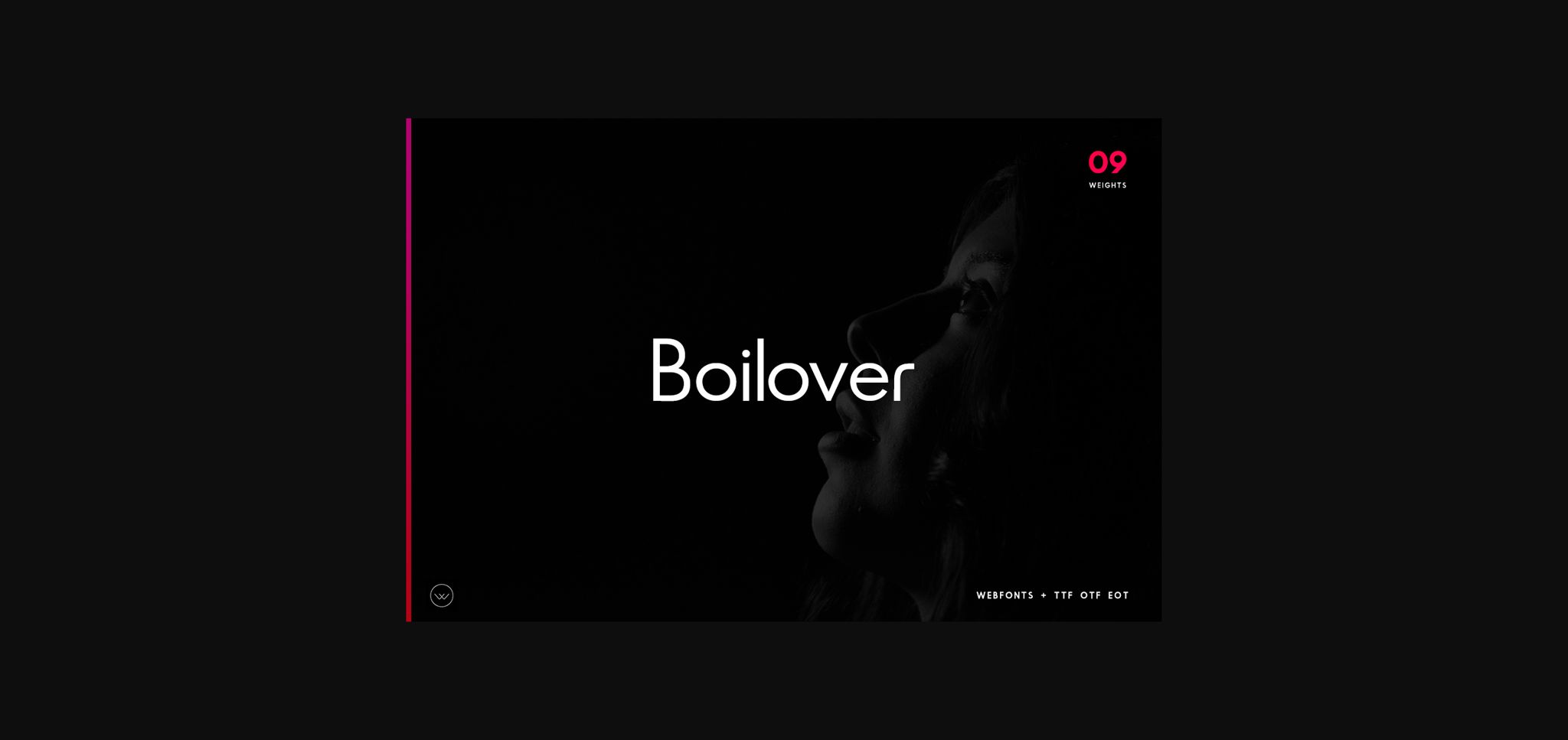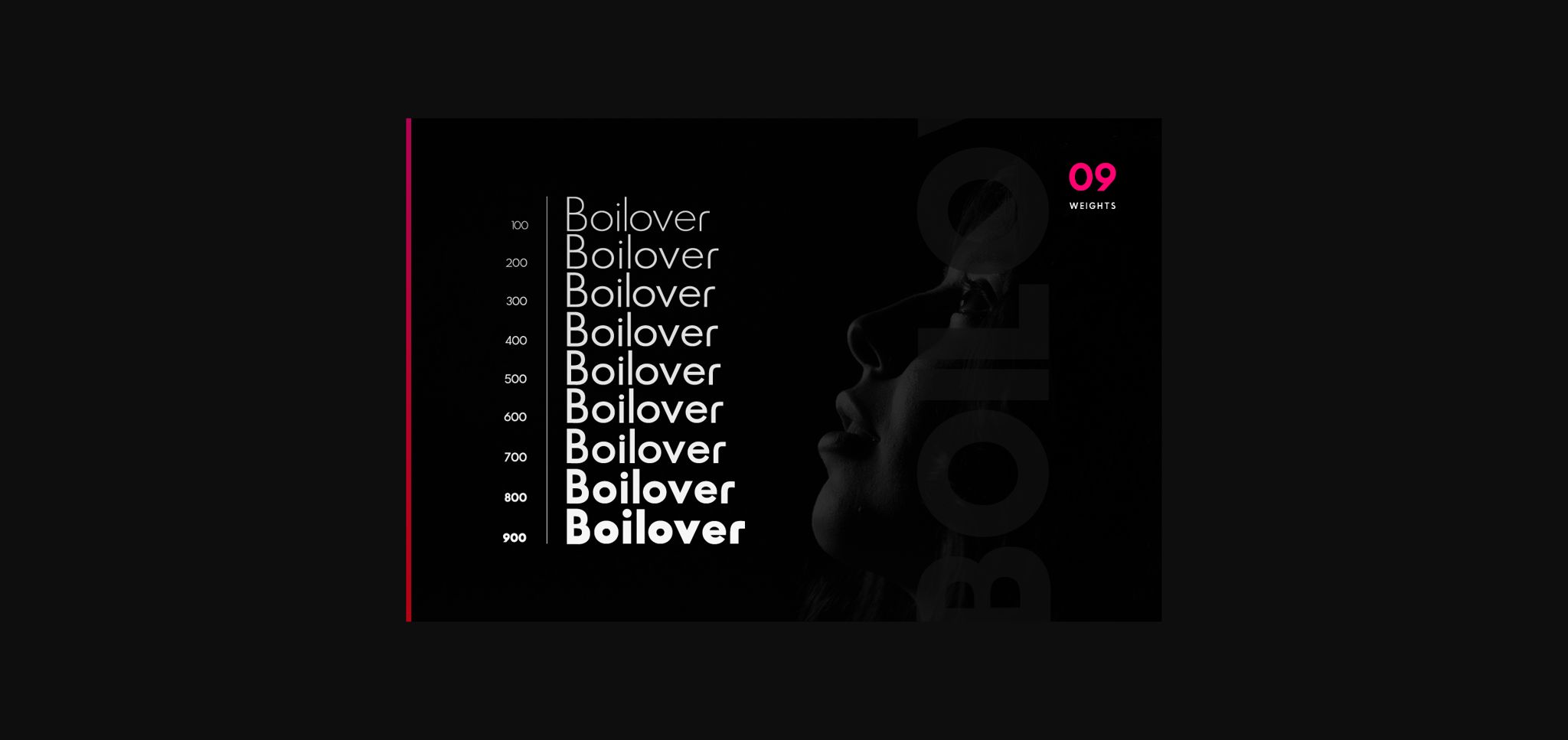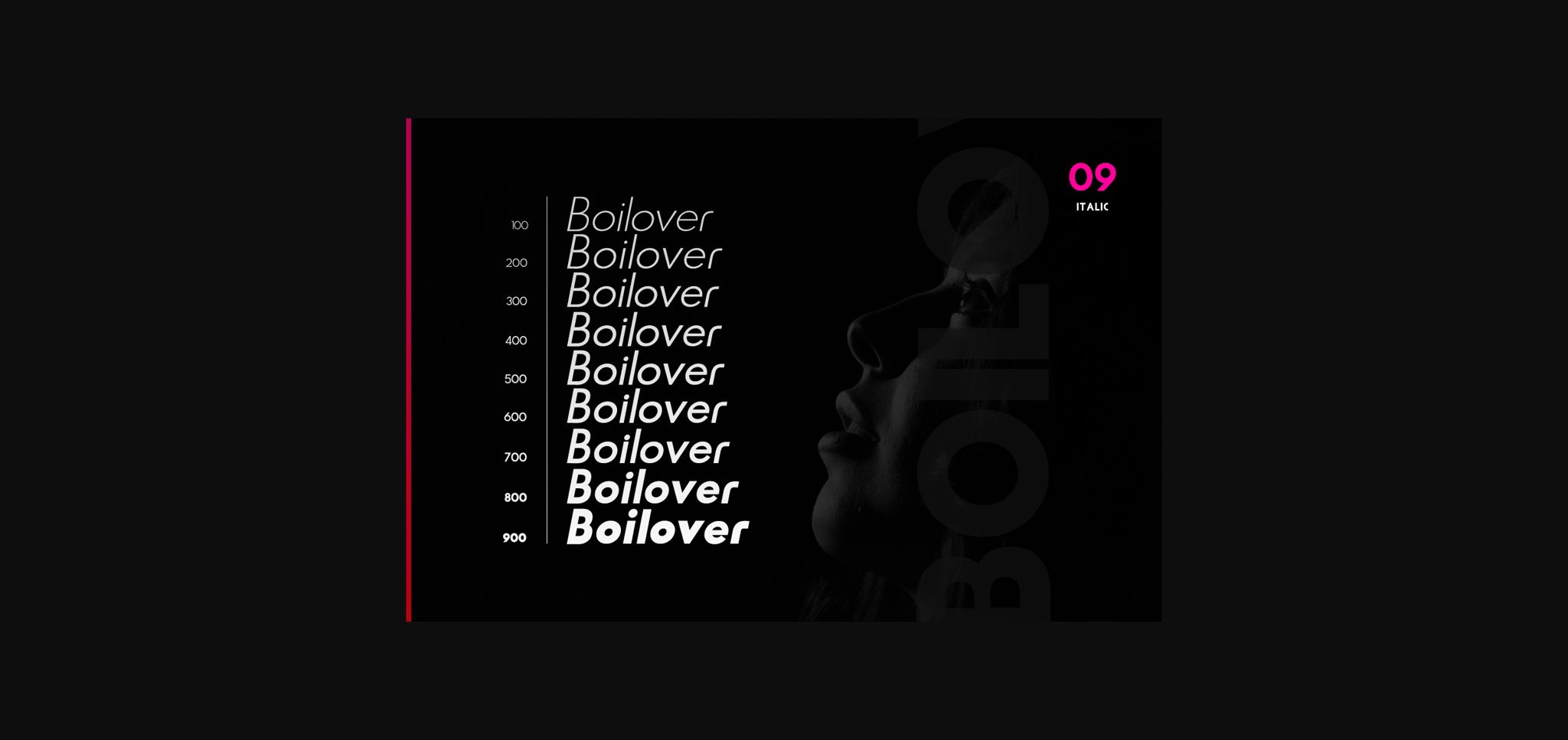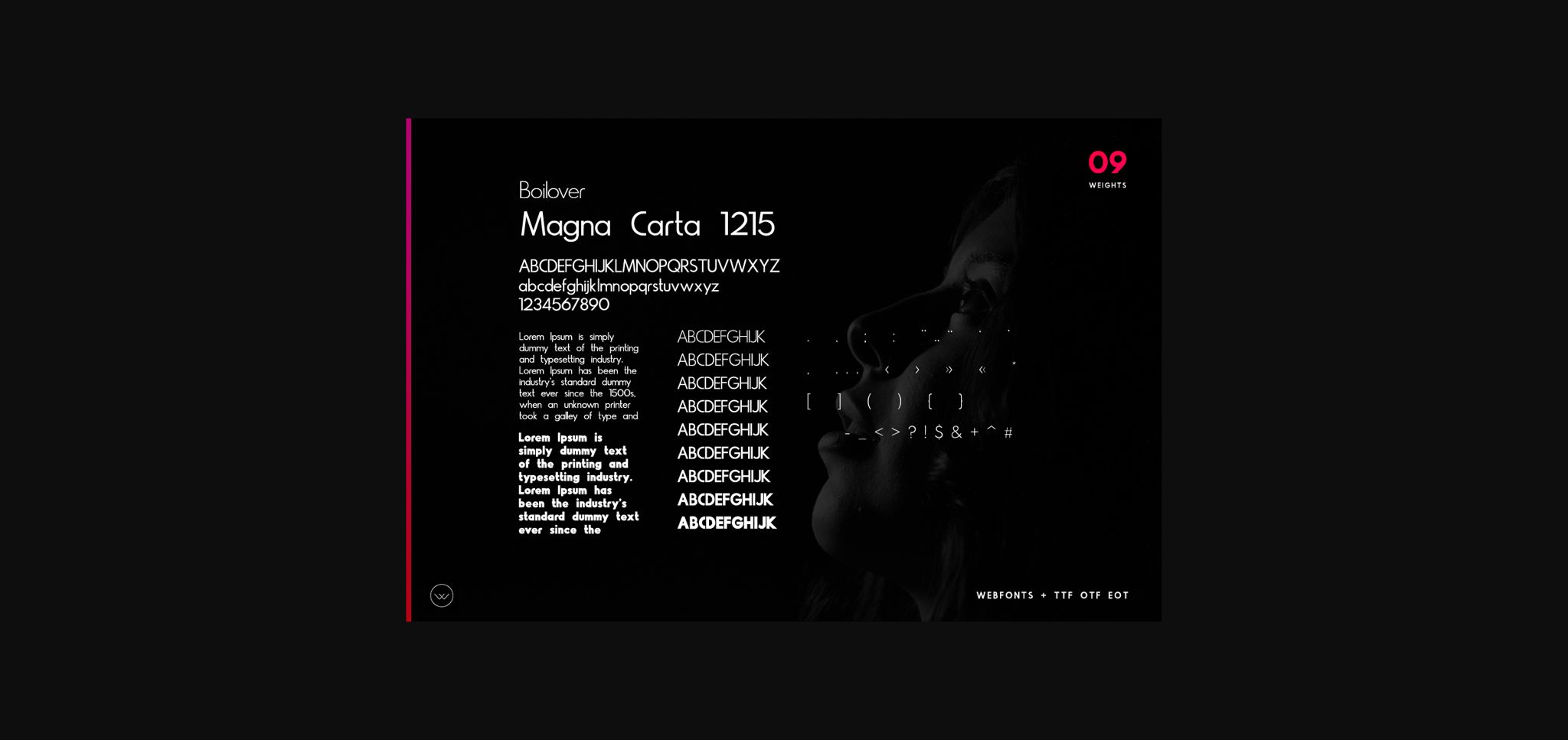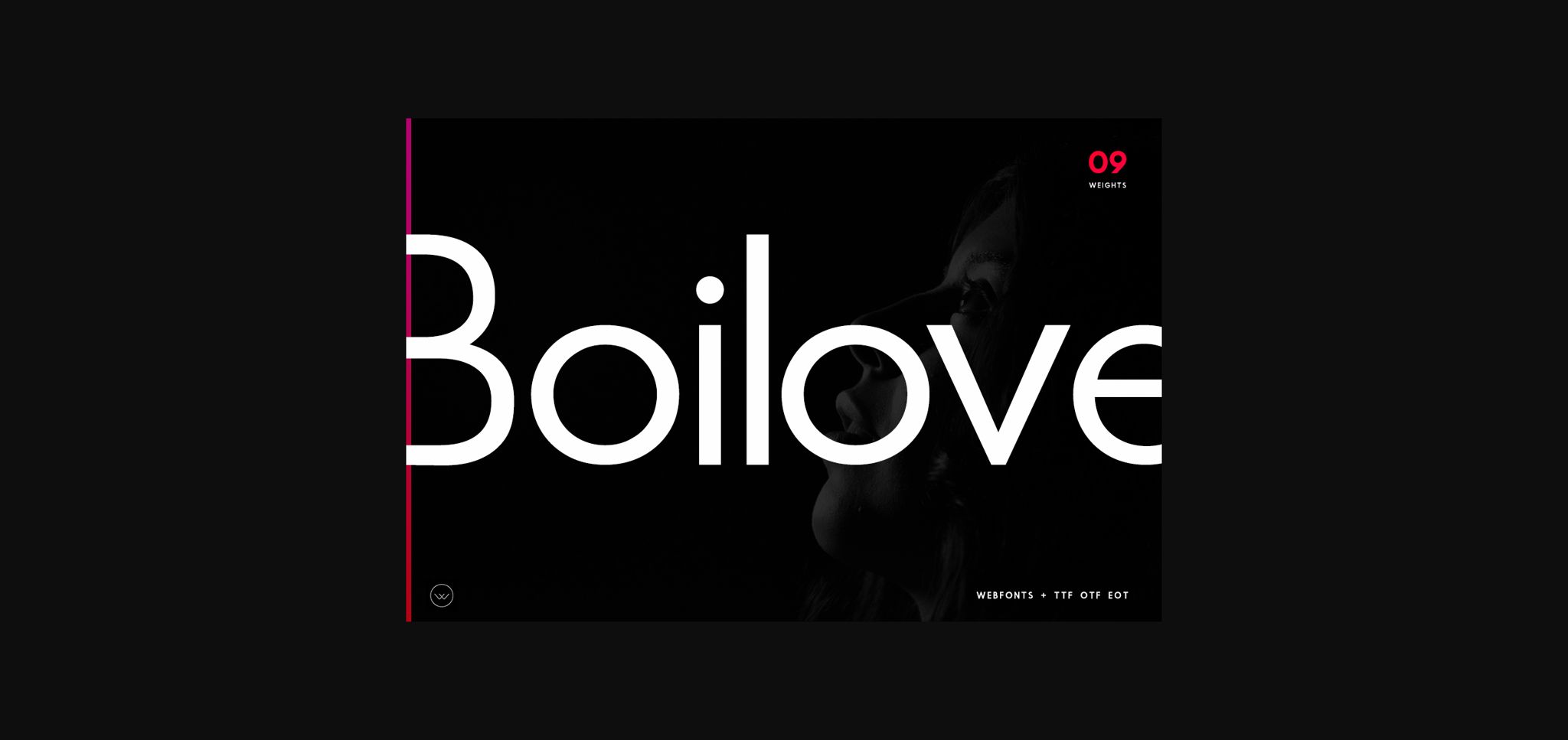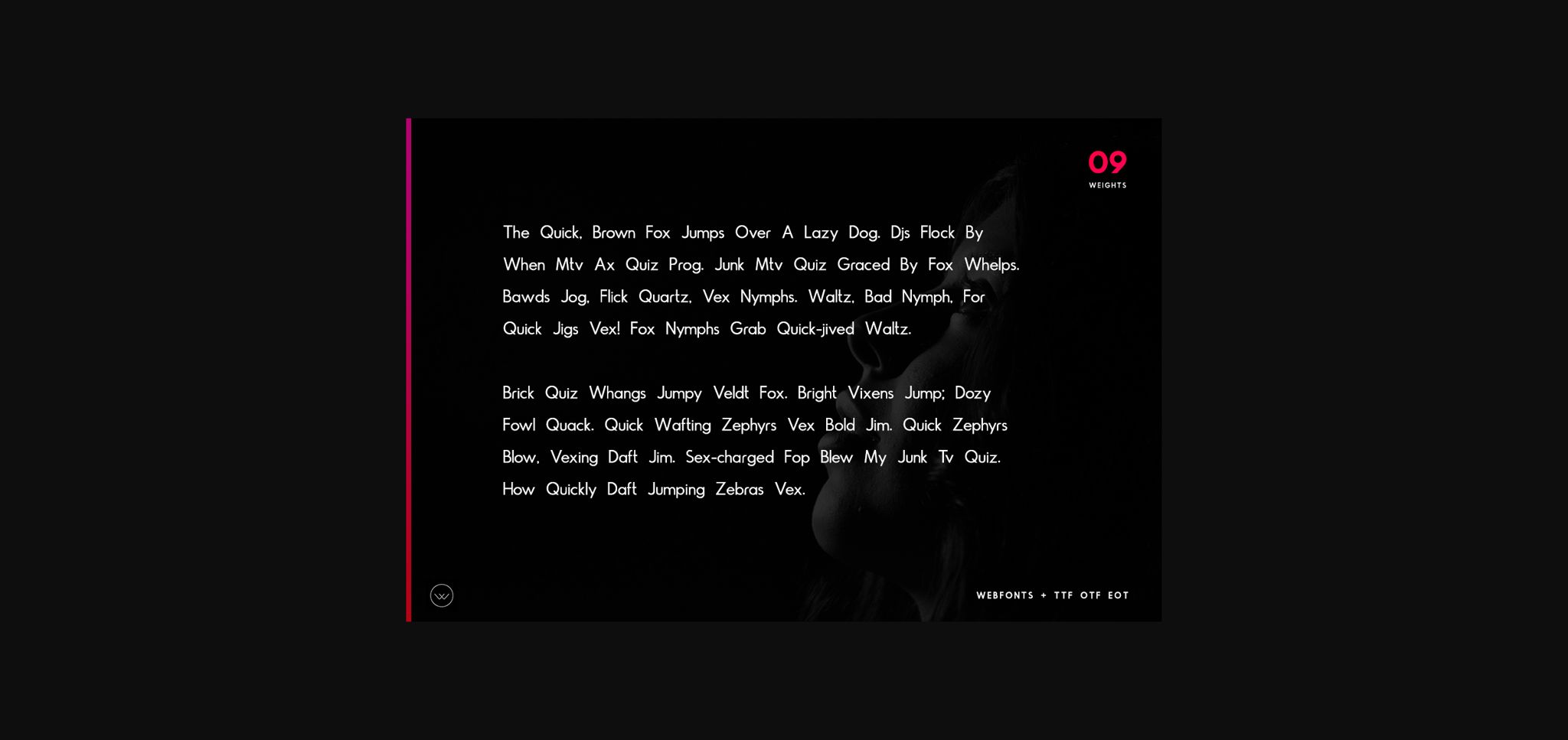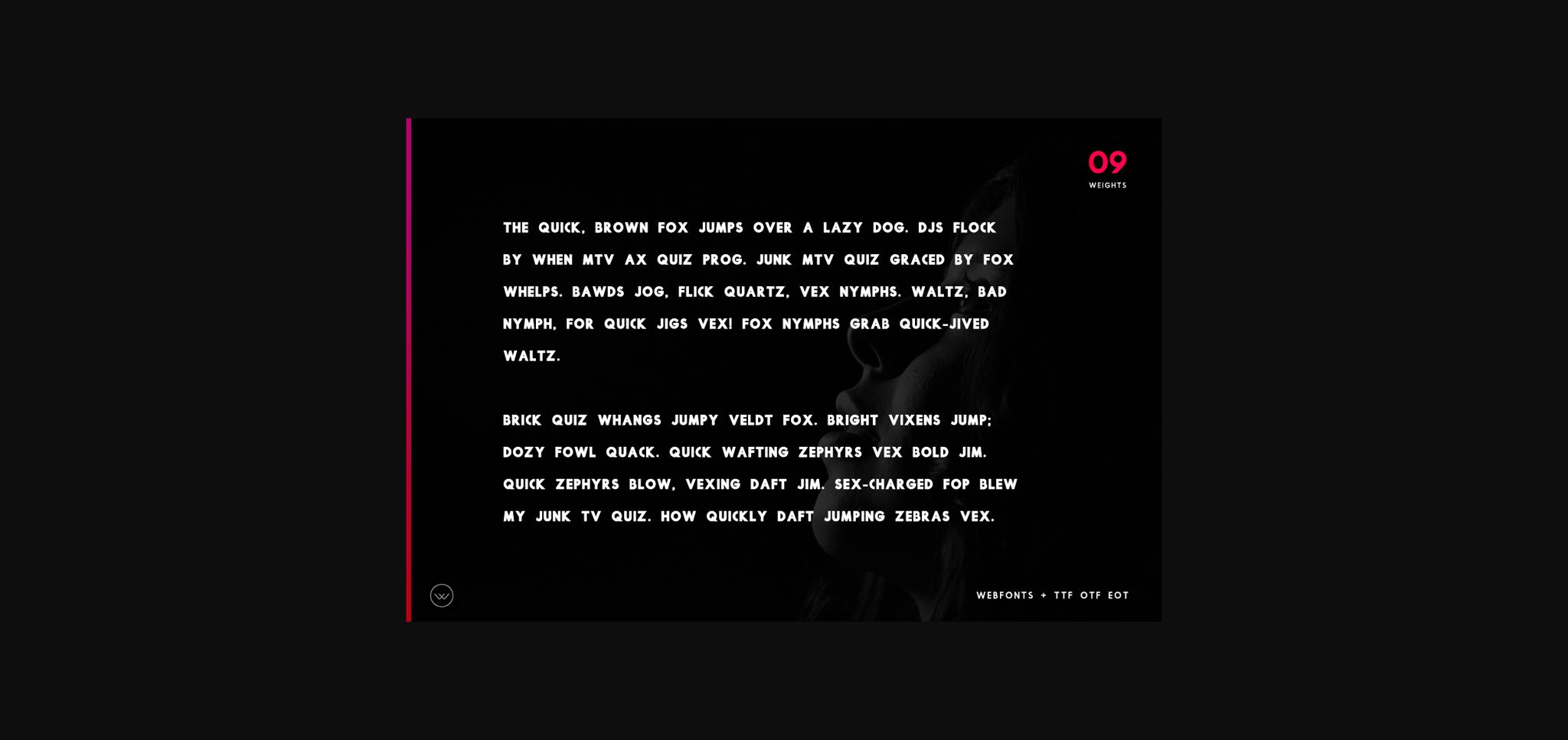
HomeSans Serif FontsBoilover Font Sans Serif Fonts Boilover Font FacebookXPinterestWhatsApp 1 of 9 ... Boilover Font Poster 2... Boilover Font Poster 3... Boilover Font Poster 4... Boilover Font Poster 5... Boilover Font Poster 6... Boilover Font Poster 7... Boilover Font Poster 8... Boilover Font Poster 9... About Boilover Font Boilover is a minimal and neat sans serif font. It can easily be matched to an incredibly large set of projects, so add it to your creative ideas and notice how it makes them stand out! DOWNLOAD NOW People also explored Thinki Lathing Font Taylor Johnson Font The Luckiest Font Monuffitah Font Melon Lemon Font Sinttesy Font Ruddy Chocoffee Font Handsetting Font 396 0 TagsBoilover Font Previous articleVeronica FontNext articleHello Christmas Font LEAVE A REPLY Cancel reply Comment: Please enter your comment! Name:* Please enter your name here Email:* You have entered an incorrect email address! Please enter your email address here Website: Save my name, email, and website in this browser for the next time I comment. Personal Use Free Fibon Personal Use Free Read more about this font Gratisan Personal Use Free Read more about this font Tanpax Personal Use Free Read more about this font Yukarimobile Personal Use Free Read more about this font BLOG Free Fonts Risk: Why Free Fonts Can Be Dangerous for Designers Free Fonts Risk: Why Free Fonts Can Be Dangerous for Designers Using free fonts is a common practice in web and graphic design. However, the... How to Cut Any Font on Cricut: Convert a Font to SVG (Free) Best Fonts for T-Shirt Design – Top 2025 Picks Fonts That Capture the Spirit of New York City